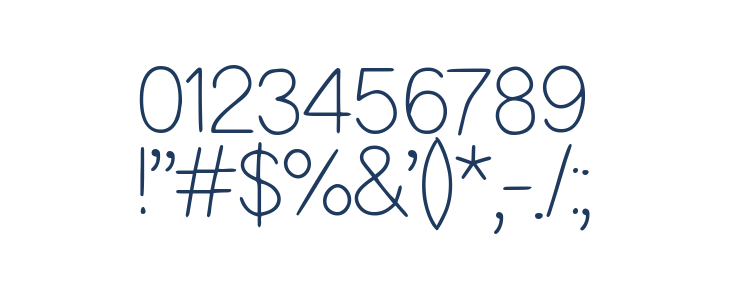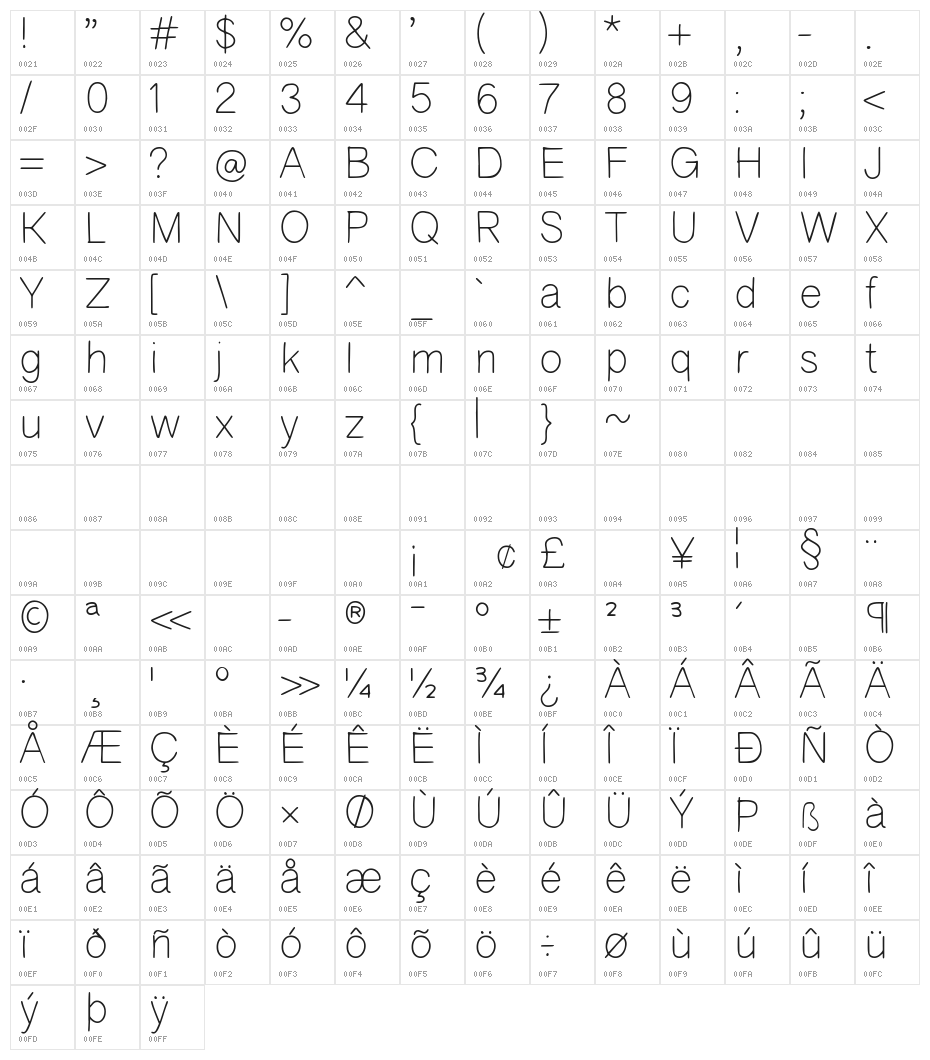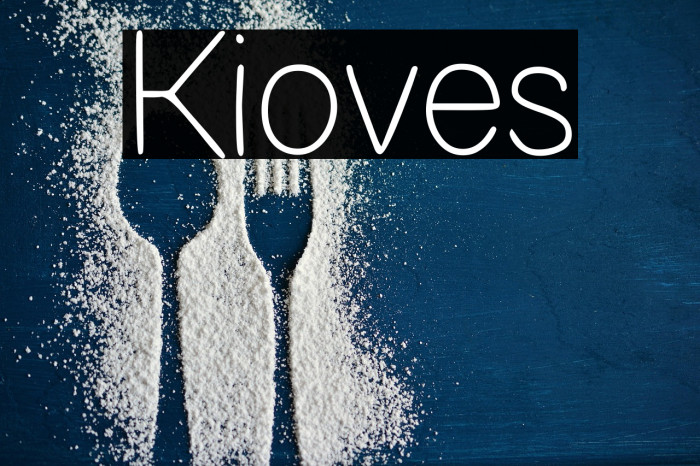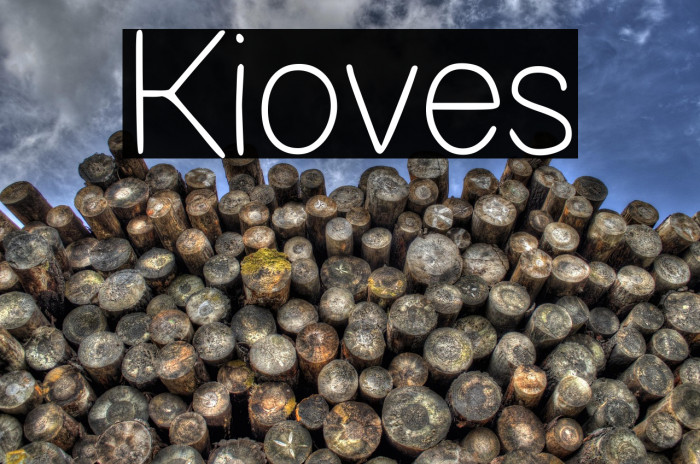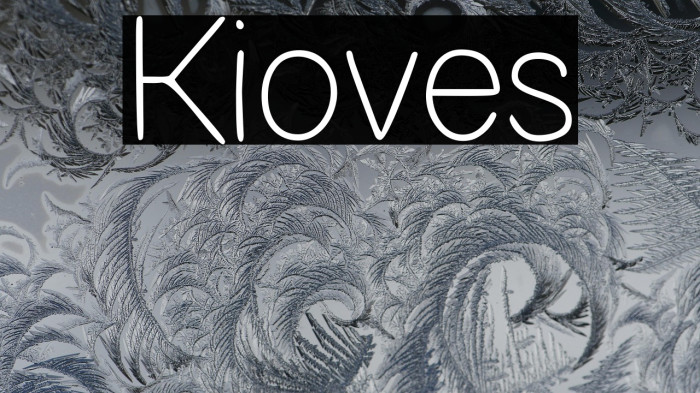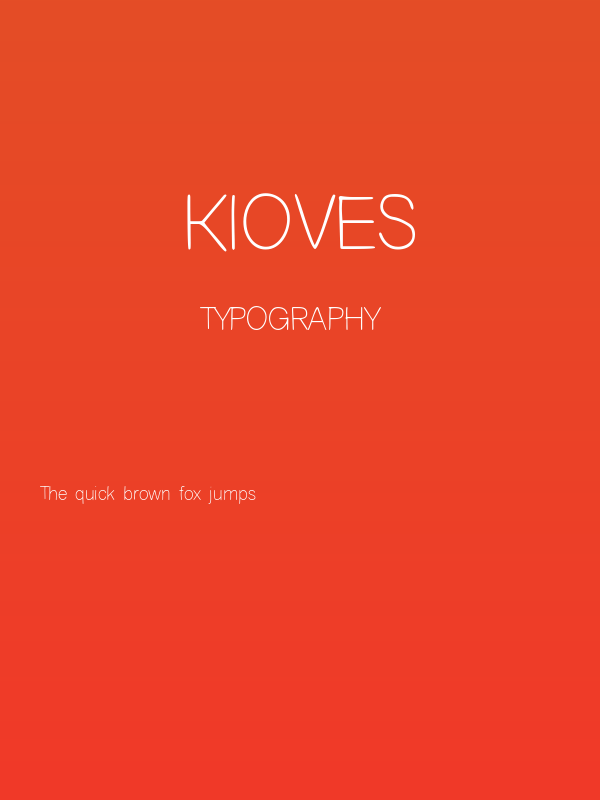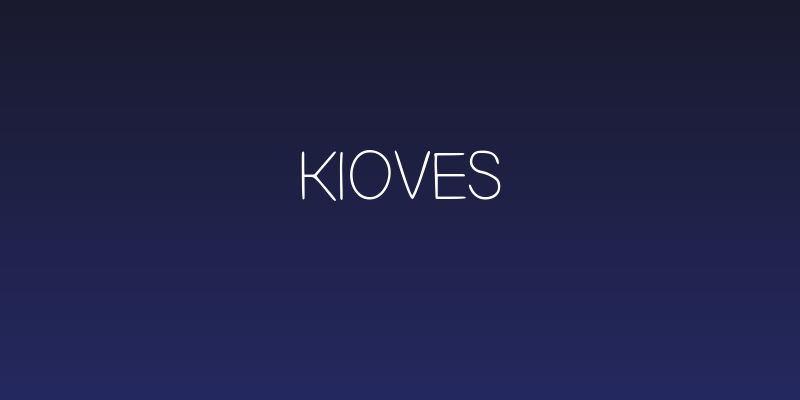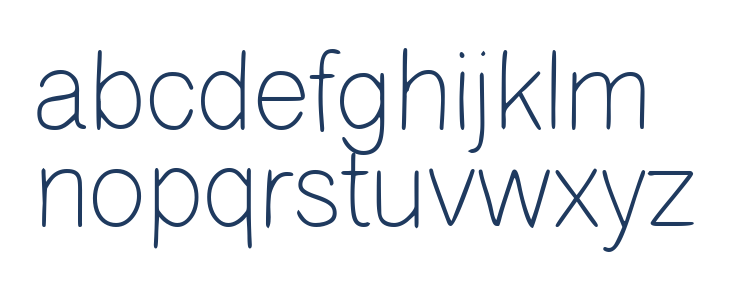
Kioves Font
Kioves Description
This font features a clean and modern sans-serif style with a slightly rounded appearance. The characters are evenly spaced, providing a balanced and harmonious look. The uppercase letters are tall and slender, while the lowercase letters maintain a consistent height, contributing to the font's readability. The numerals are clear and distinct, making them suitable for various applications. Special characters are well-defined, ensuring versatility in design projects. The overall design is minimalistic, making it ideal for contemporary and professional uses.